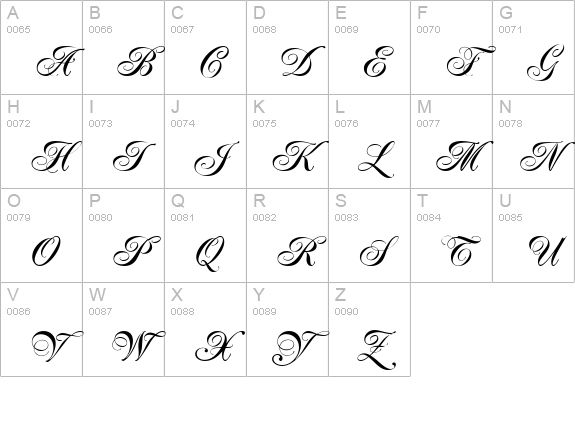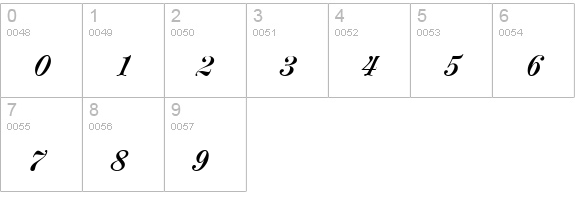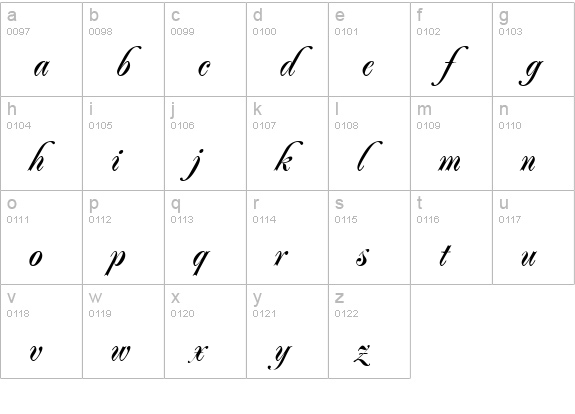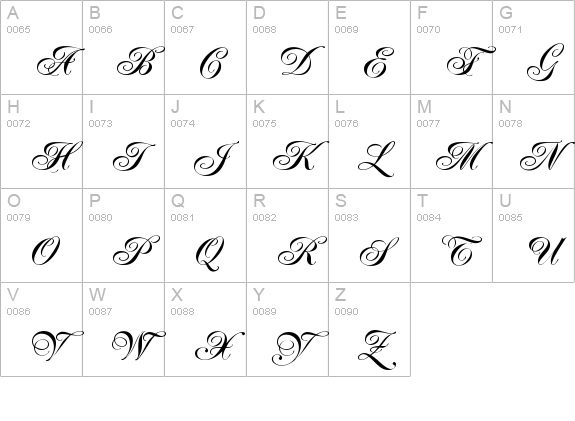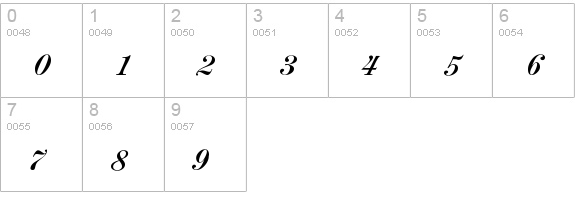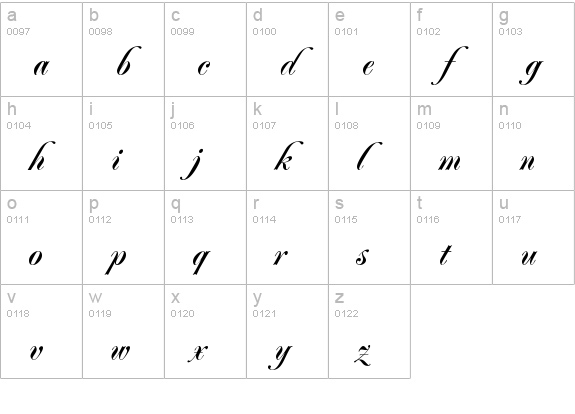
Jacoba Bold is a strong, high-contrast variant in the Jacoba typeface family \xE2\x80\x94 well suited to headlines, attention-grabbing titles, and strong calls-to-action.
Introducing Jacoba Bold, a visually striking and modern font that exudes confidence and creativity. With its bold and distinctive letterforms, Jacoba Bold is perfect for making a statement in your designs. This versatile font can be used in a variety of projects, from logos and branding materials to posters, headlines, and social media graphics. Its strong and commanding presence will capture your audience's attention and leave a lasting impression. Jacoba Bold is not only visually appealing, but it is also highly legible, ensuring that your message is communicated clearly and effectively. Its well-defined and carefully crafted letterforms make it easy to read, even at smaller sizes. But what sets Jacoba Bold apart is that it is freely available to download at FontsMarket.com. Yes, you heard it right - this remarkable font can be yours without spending a dime. FontsMarket.com is a trusted source for high-quality fonts, and they are delighted to offer Jacoba Bold as a free download for all design enthusiasts. So, whether you're a professional designer looking to add a bold and captivating touch to your latest project or a hobbyist seeking to explore new creative possibilities, Jacoba Bold is the perfect choice. Download it now from FontsMarket.com and unleash your creativity with this stunning and freely available font.